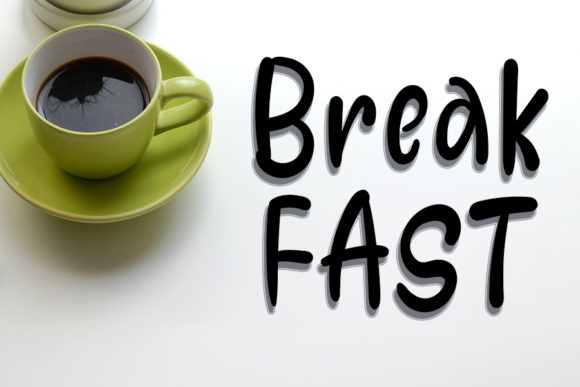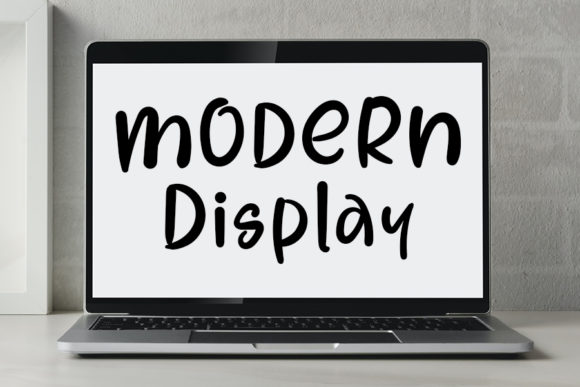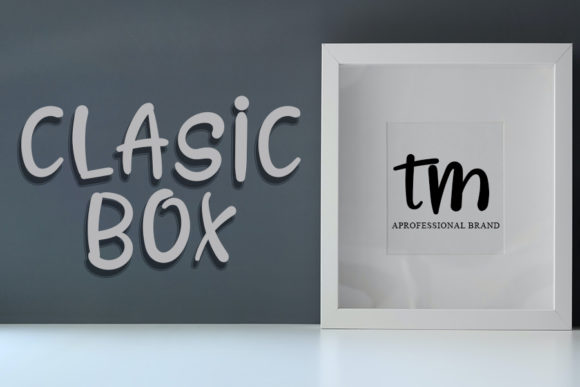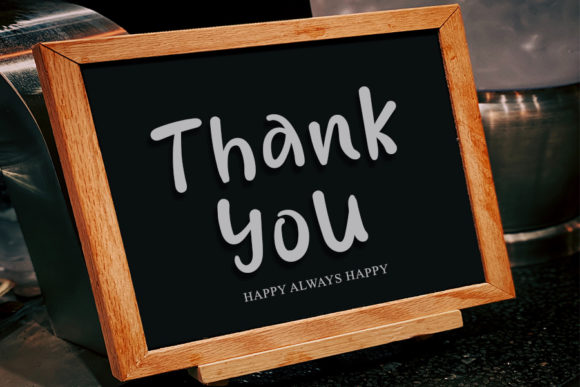
Introducing Happy Moments Font: The Ultimate Choice for Friendly and Playful Designs
Are you tired of using the same old fonts for your designs? Do you want to add a touch of friendliness and approachability to your projects? Look no further than Happy Moments Font, a cute and casual handwritten font that’s sure to bring a smile to your audience’s faces. In this article, we’ll dive into the world of Happy Moments Font and explore its features, benefits, and uses.
What is Happy Moments Font?
Happy Moments Font is a beautifully crafted handwritten font that’s designed to evoke feelings of joy and warmth. Its incredibly friendly feel makes it perfect for a wide range of design projects, from social media graphics and blog posts to branding materials and craft projects. Whether you’re a designer, crafter, or DIY enthusiast, Happy Moments Font is sure to become your go-to choice for adding a personal touch to your work.
Key Features of Happy Moments Font
- Cute and Casual: Happy Moments Font is a handwritten font that’s designed to be playful and approachable. Its casual vibe makes it perfect for designs that need to feel friendly and relatable.
- Incredibly Friendly Feel: The font’s friendly feel is what sets it apart from other handwritten fonts. It’s perfect for designs that need to evoke feelings of warmth and approachability.
- Versatile: Happy Moments Font is incredibly versatile and can be used in a wide range of design projects, from digital graphics to print materials.
- Easy to Read: Despite its playful nature, Happy Moments Font is incredibly easy to read, making it perfect for body text and headlines.
Benefits of Using Happy Moments Font
So, why should you choose Happy Moments Font for your designs? Here are just a few benefits of using this amazing font:
- Adds a Personal Touch: Happy Moments Font adds a personal touch to your designs, making them feel more approachable and relatable.
- Evokes Feelings of Joy: The font’s playful and friendly nature evokes feelings of joy and warmth, making it perfect for designs that need to bring a smile to your audience’s faces.
- Perfect for Busy Backgrounds: Happy Moments Font looks outstanding on busy backgrounds, making it perfect for designs that need to stand out.
- Great for Headlines: The font’s bold and playful nature makes it perfect for headlines and titles.
Using Happy Moments Font in Your Designs
So, how can you use Happy Moments Font in your designs? Here are a few ideas to get you started:
- Social Media Graphics: Use Happy Moments Font to create friendly and approachable social media graphics that will help you connect with your audience.
- Branding Materials: Add a personal touch to your branding materials, such as business cards and brochures, with Happy Moments Font.
- Blog Posts: Use Happy Moments Font to add a playful touch to your blog posts and make them more engaging.
- Craft Projects: Happy Moments Font is perfect for craft projects, such as handmade cards and invitations.
Tips and Tricks for Using Happy Moments Font
Here are a few tips and tricks for getting the most out of Happy Moments Font:
- Experiment with Colors: Happy Moments Font looks great in a wide range of colors, so don’t be afraid to experiment and find the perfect color for your design.
- Mix and Match: Mix and match Happy Moments Font with other fonts to create a unique and interesting design.
- Use it for Headlines and Body Text: Happy Moments Font is perfect for both headlines and body text, making it a versatile addition to your design toolkit.